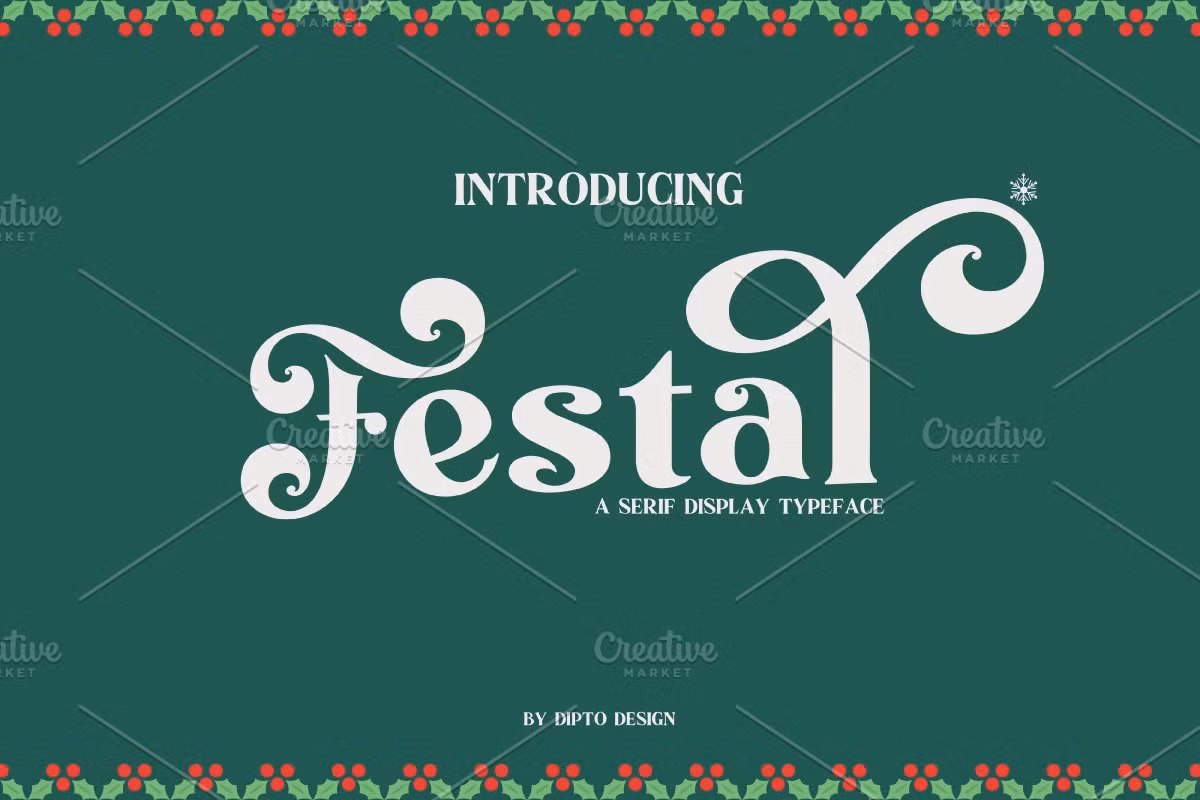
You must purchase this font for commercial use. However, you can download Festal-Christmas Typeface Free Download for testing purposes. Festal is a cheerful and festive typeface designed to capture the spirit of the holiday season. Perfect for Christmas cards, invitations, holiday banners, posters, and gift packaging, this font adds a warm, jolly touch to any seasonal design.
With its playful letterforms, decorative elements, and festive style, Festal-Christmas Typeface evokes the magic of the holidays and brings a fun, handcrafted feel to your typography. Whether you’re creating greeting cards, holiday promotions, or festive social media graphics, this font is perfect for spreading seasonal cheer.